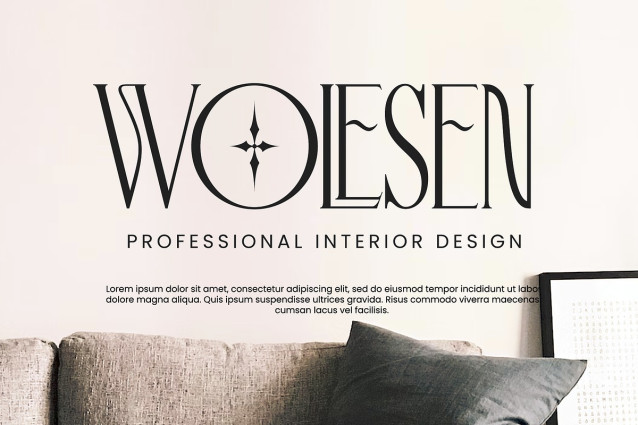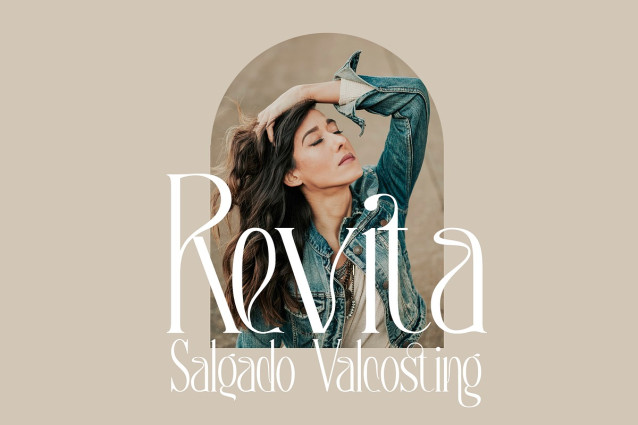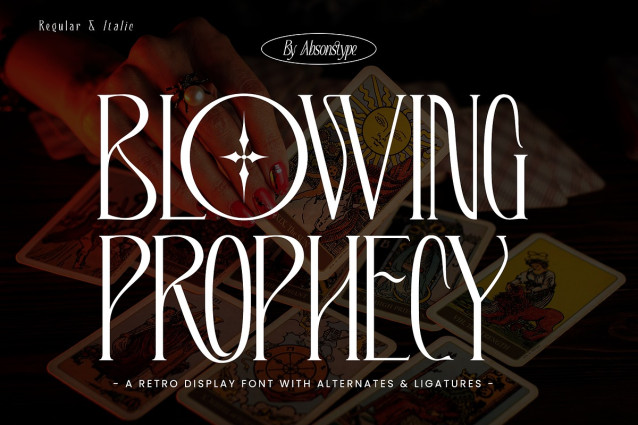
Blowing Prophecy Font
Blowing Prophecy Font is the Unique Serif display typeface with combine uppercase and lowercase looks and feel nice balanced. Provide with alternates and ligatures font in variant style make the design letter looks nice. Honestly it works perfectly for headlines, logos, posters, packaging, T-shirts and much more.